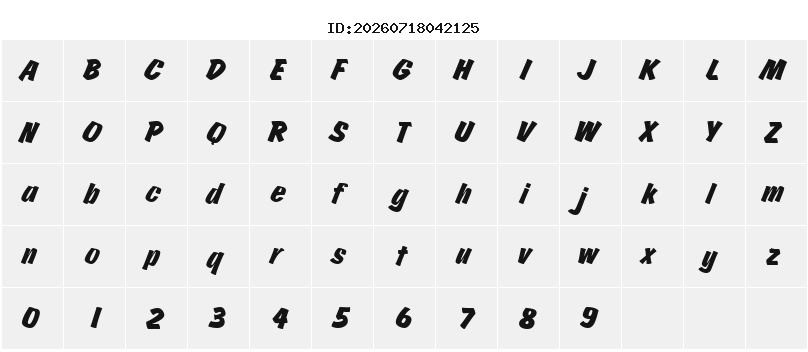
ChurchwardBruDReg Preview
• Font Name: ChurchwardBruDReg
• Font ID: URW:ChurchwardBruD-ReguItal:1994
• Full Font Name: ChurchwardBruDReg Italic
• PostScript Name: ChurchwardBruD-ReguItal
About ChurchwardBruDReg.ttf
ChurchwardBruDReg.ttf is a modern, elegant sans-serif font designed for ultimate readability and visual harmony. Perfect for branding, headlines, web design, and print materials.